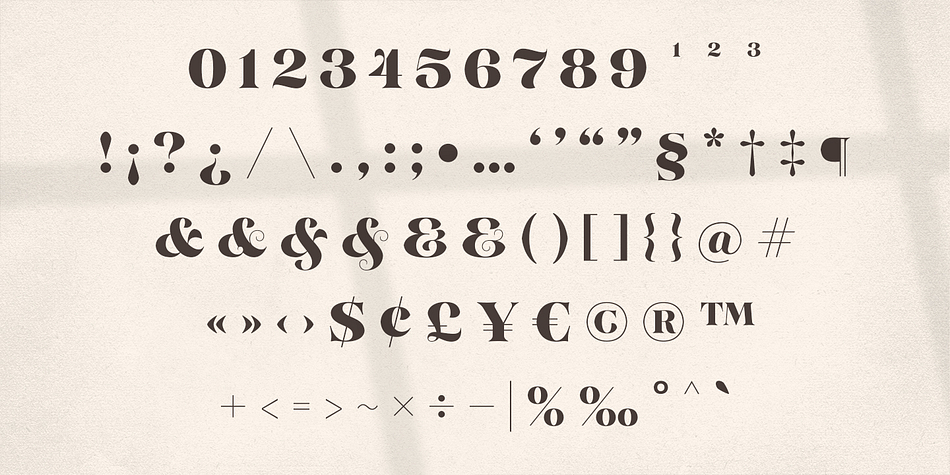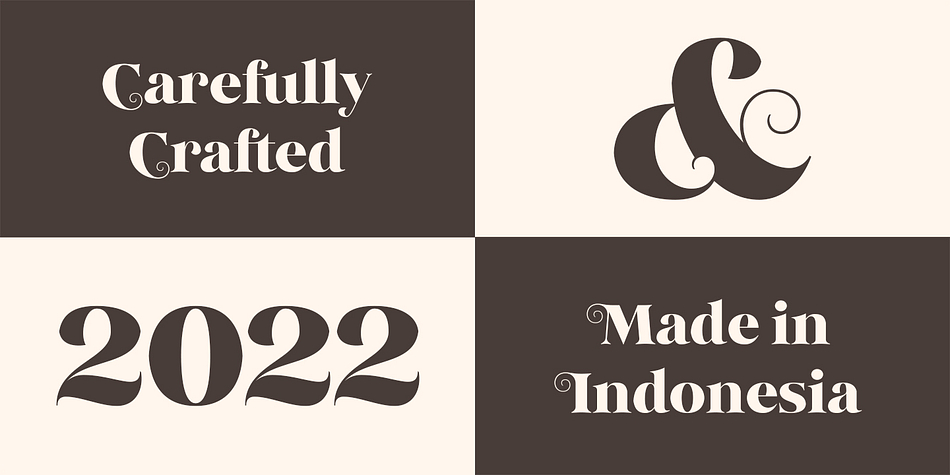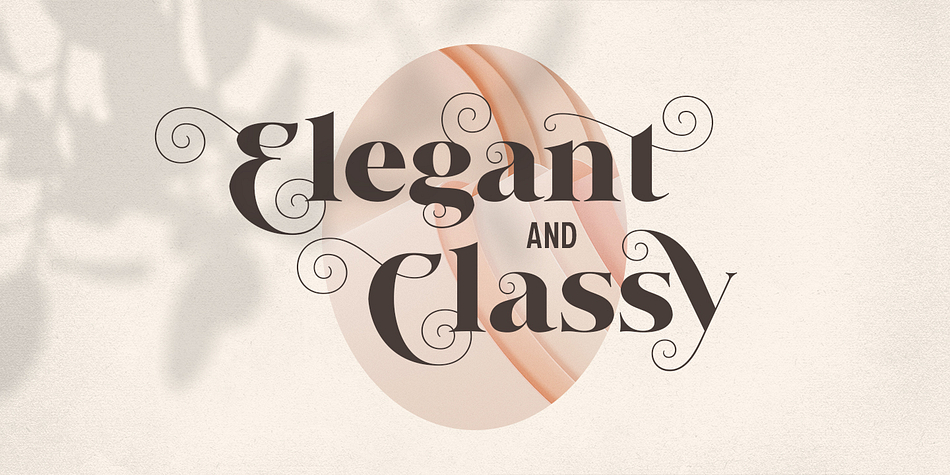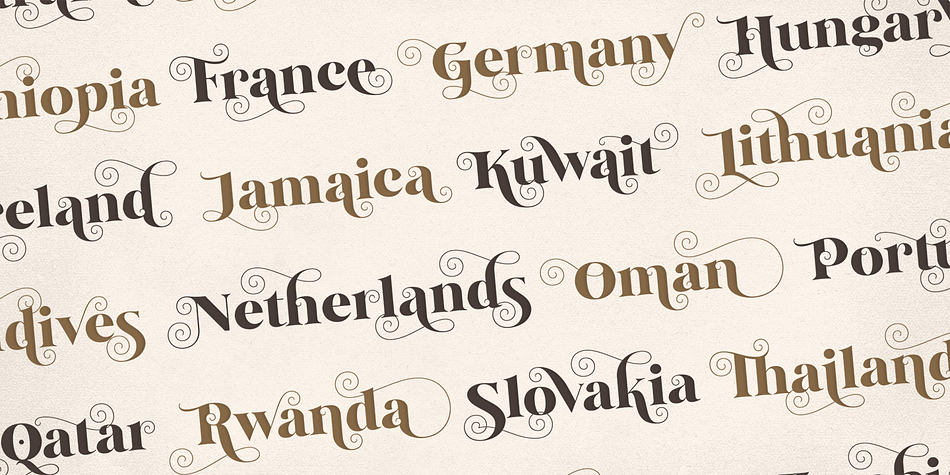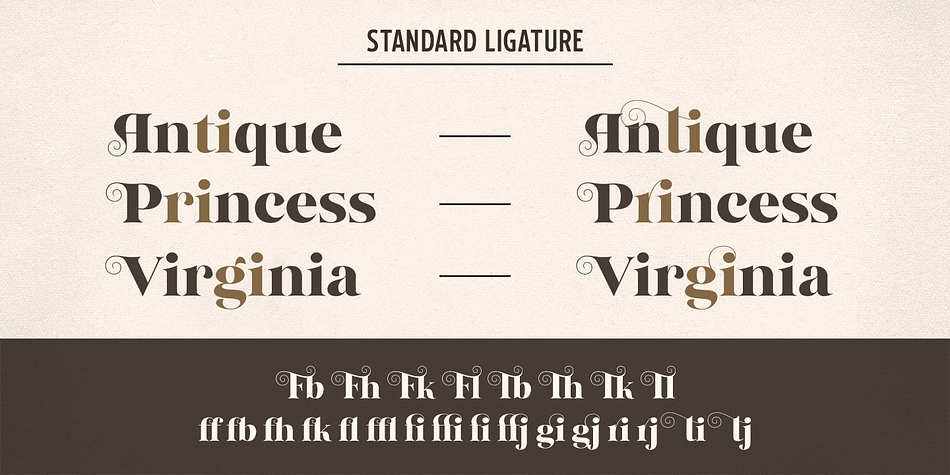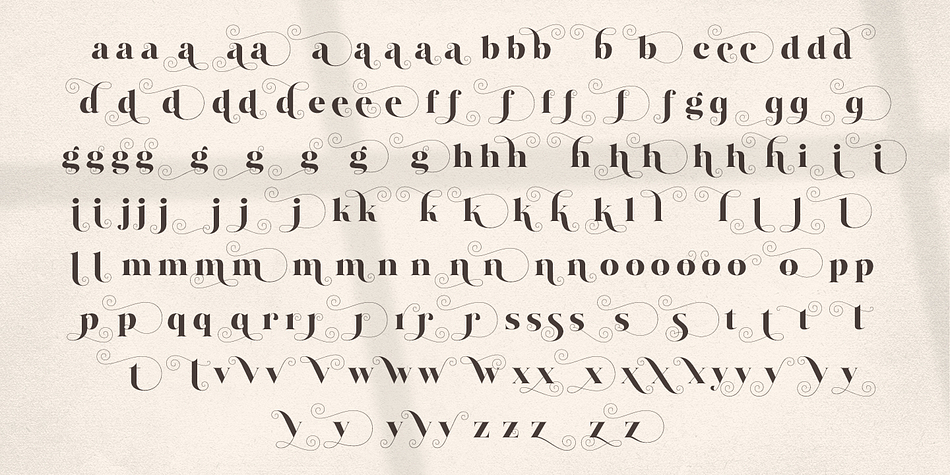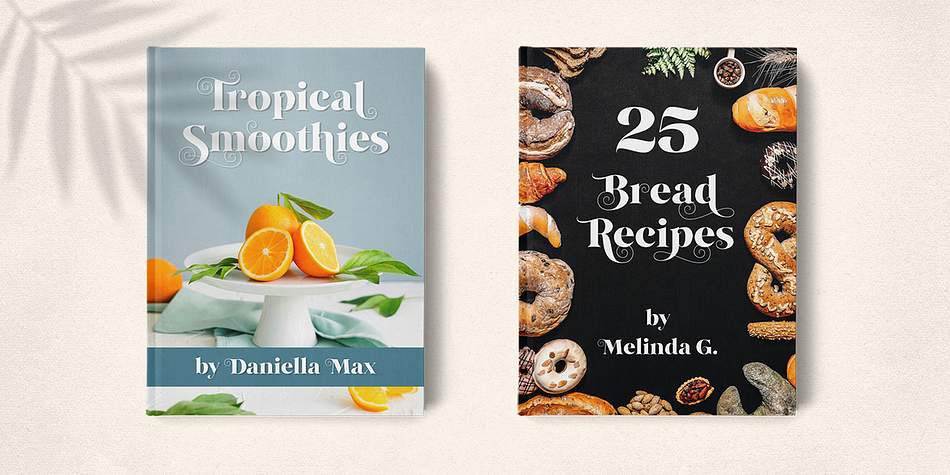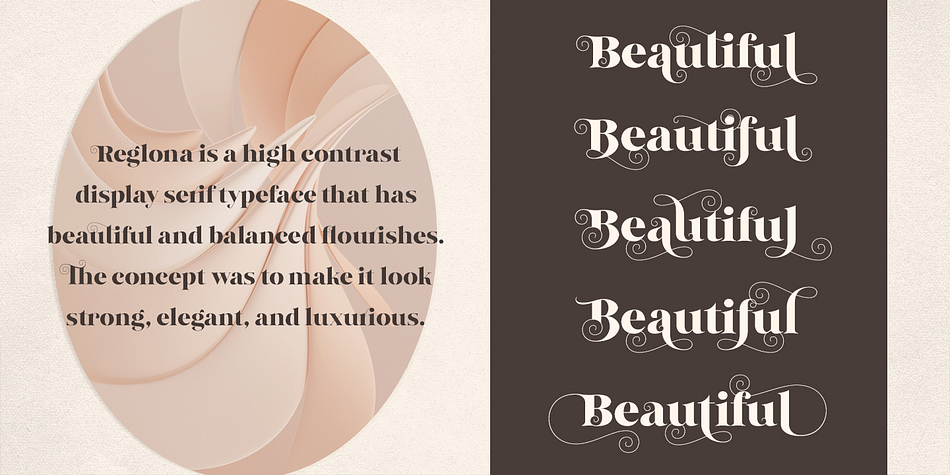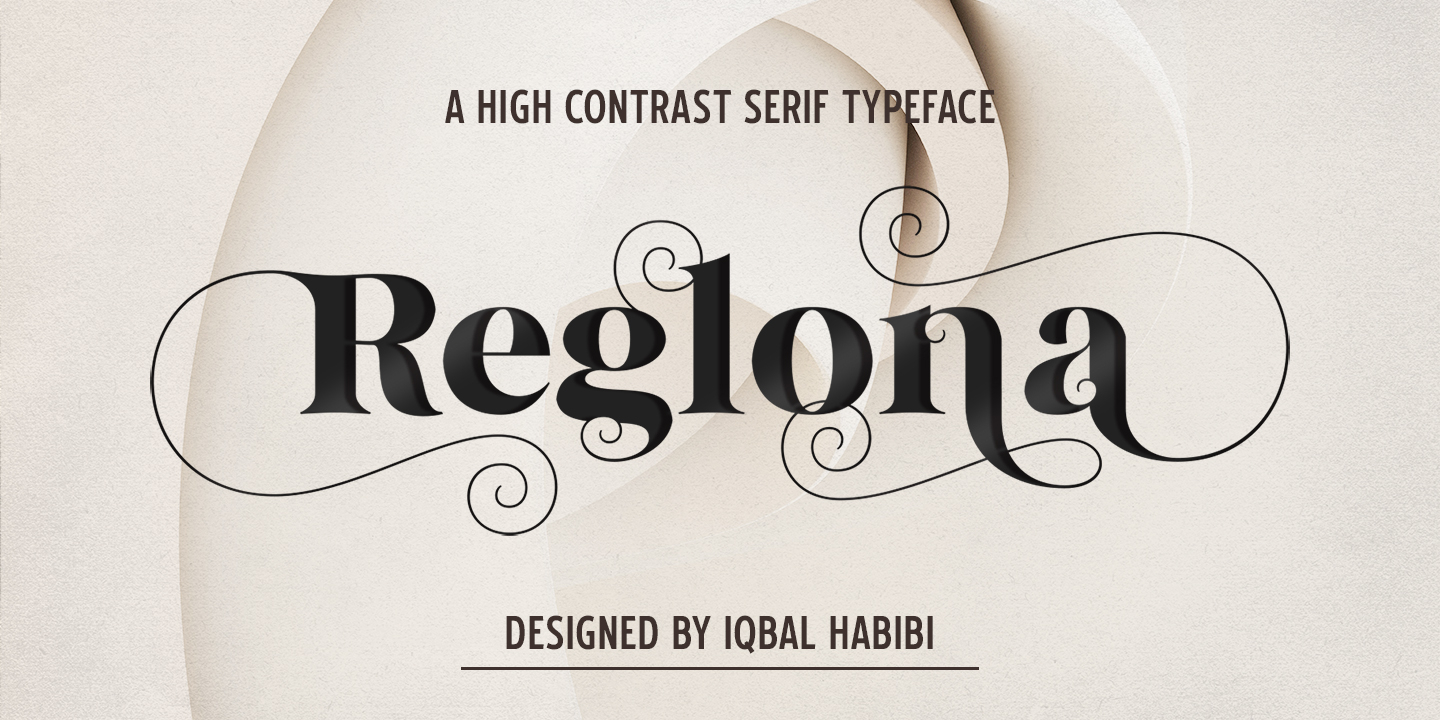
Reglona
Designed by Iqbal Habibi, Reglona is a display serif font family published by Iqbal Habibi.
Reglona is a high-contrast display serif typeface that has beautiful and balanced flourishes. The concept was to make it look strong, elegant, and luxurious. Reglona contains 400+ alternate characters you can play with. Reglona perfectly suited for Headlines, Logotypes, Titles, Packaging Designs, Quotes, and other graphic design projects.
Foundry Iqbal Habibi
Designer Iqbal Habibi